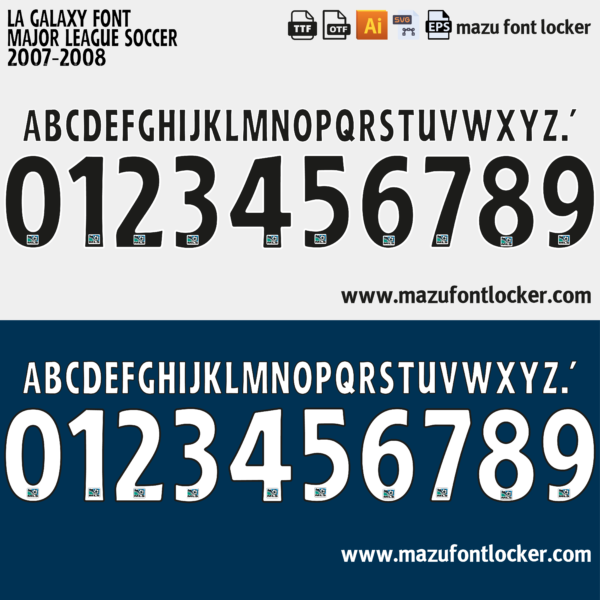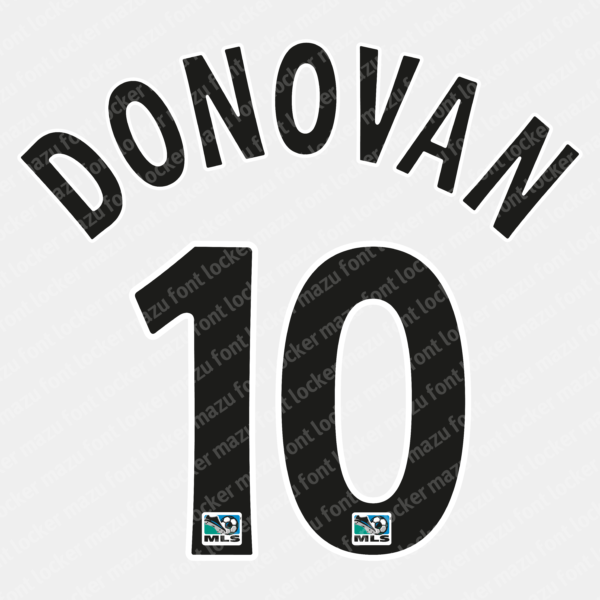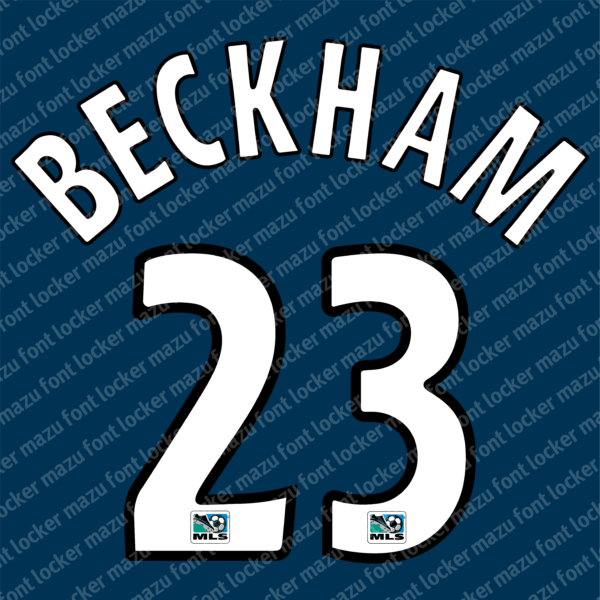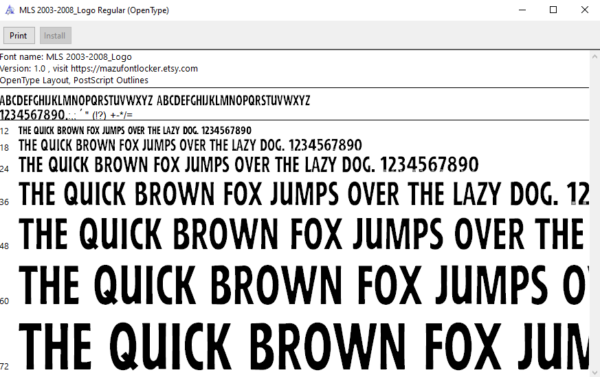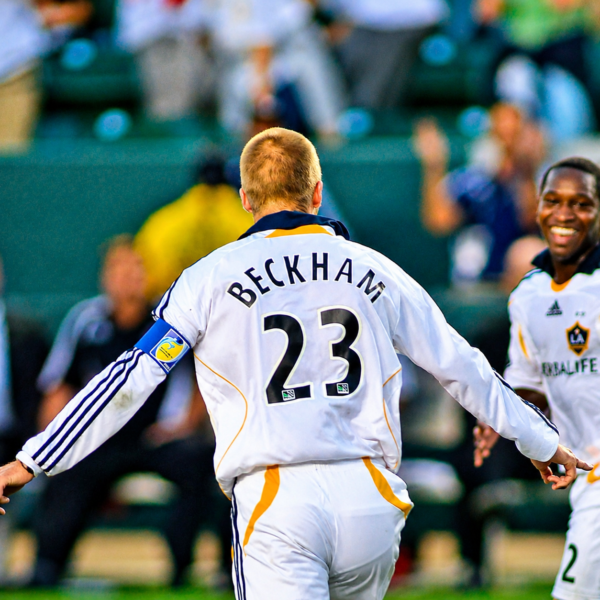
LA Galaxy 2007-2008 Font Vector – Epic Beckham Masterpiece
Download LA Galaxy 2007-2008 Font now and relive the golden era of Major League Soccer with unstoppable Hollywood glamour and pure football power. This premium LA Galaxy 2007-2008 Font perfectly captures the bold, sleek, and iconic typography from the legendary Beckham era that transformed American soccer forever.
Designed with razor-sharp precision, LA Galaxy 2007-2008 Font delivers commanding presence and premium elegance, making it the ultimate choice for creating stunning football posters, fan merchandise, custom jerseys, social media graphics, and high-impact branding. Every curve and edge reflects the star-studded energy, winning mentality, and vibrant identity of the team that dominated the pitch with style and excellence.
- Authentic 2007-2008 LA Galaxy jersey lettering style
The authentic lettering style helps recreate the classic look of the LA Galaxy 2007-2008 kit with professional accuracy.
Unlike generic jersey fonts, this set is designed with a strong focus on authenticity and accuracy. Every detail is based on the original match lettering style used during the LA Galaxy 2007-2008, helping designers and collectors create realistic football shirt designs.
This LA Galaxy 2007-2008 font vector set is designed for authentic football jersey customization and works perfectly for retro football projects, collector designs, and professional sportswear artwork.